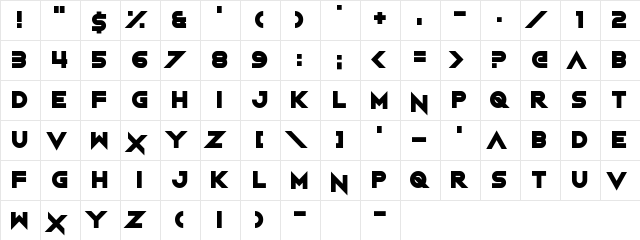
Night Machine Regular
| Designer | NAL |
Design Context for Night Machine Typeface
Night Machine is a composed and adaptable typeface that performs quietly and consistently across a wide range of design contexts.